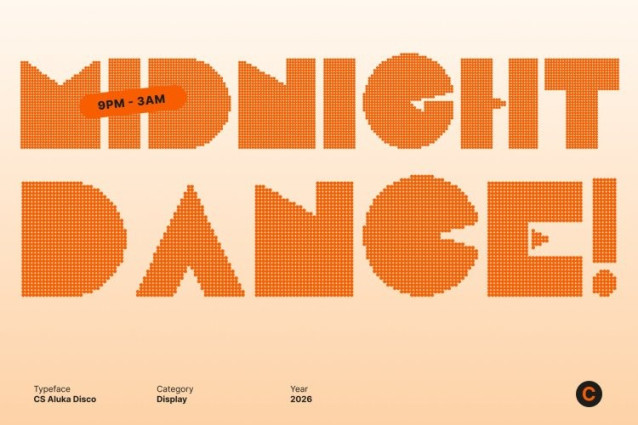
CS Aluka Disco Font
CS Aluka Disco Font This is a bold display font inspired by classic arcade and Pac-Man–style games. Built from strong geometric shapes and pixel-influenced forms, it instantly evokes retro gaming nostalgia while delivering a fun, modern visual punch. Each letter feels bold, blocky, and energetic perfect for designs that celebrate playful digital culture.
Distinctive Geometry with Disco Glamour
The font’s clean geometric construction is enhanced with a disco-inspired style that adds shine, rhythm, and visual excitement. This fusion of arcade aesthetics and glamorous disco energy creates a lively, eye-catching look reminiscent of flashing screens, neon lights, and vibrant game rooms. The result is a font that feels festive, expressive, and full of movement.
Playful Energy for Bold Digital Expression
This font radiates joy and creativity through its confident shapes and upbeat personality. Its playful energy makes every word feel dynamic and fun, helping designs stand out with charm and character. Whether used large or small, the font delivers strong impact with a lighthearted, retro-modern twist.
Perfect for Games, Branding, and Digital Designs
This font is ideal for game titles, arcade-themed visuals, playful branding, posters, apps, and digital designs. Its combination of retro arcade influence and disco-style glamour makes it perfect for projects that aim to feel nostalgic, energetic, and visually unforgettable—bringing classic fun into a bold, modern spotlight.